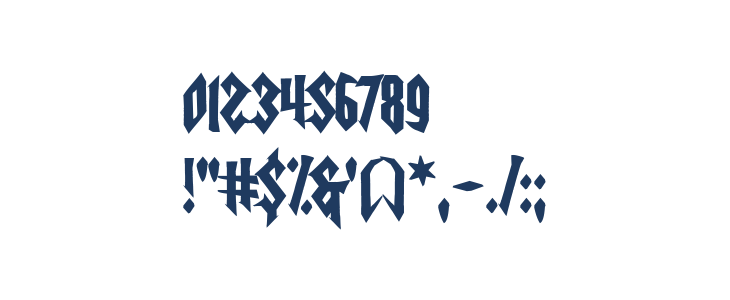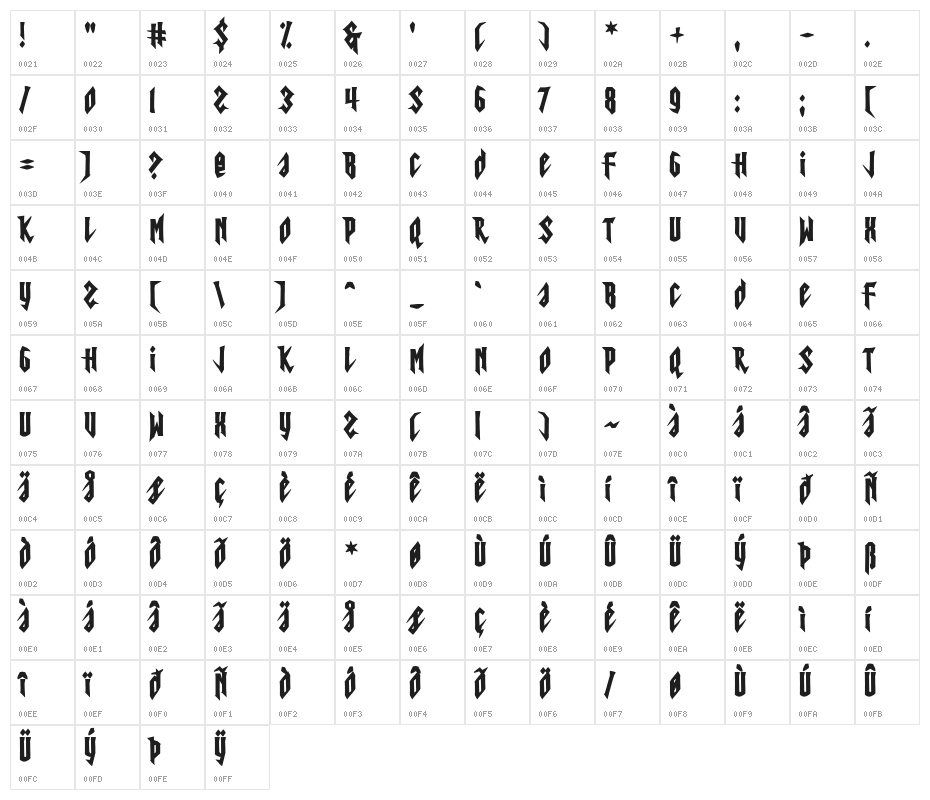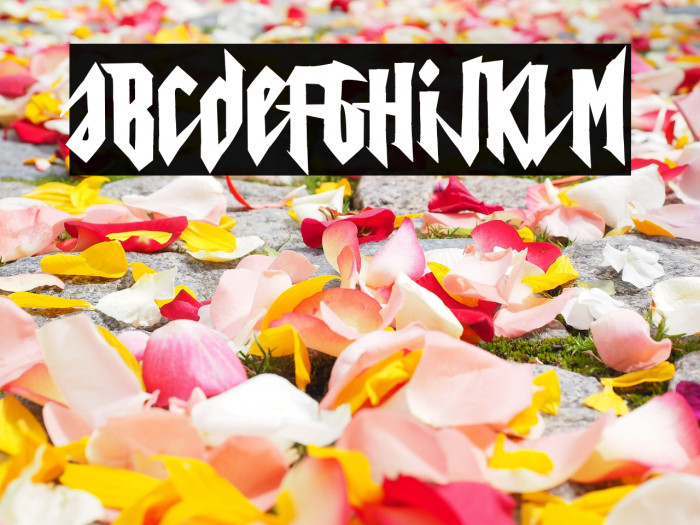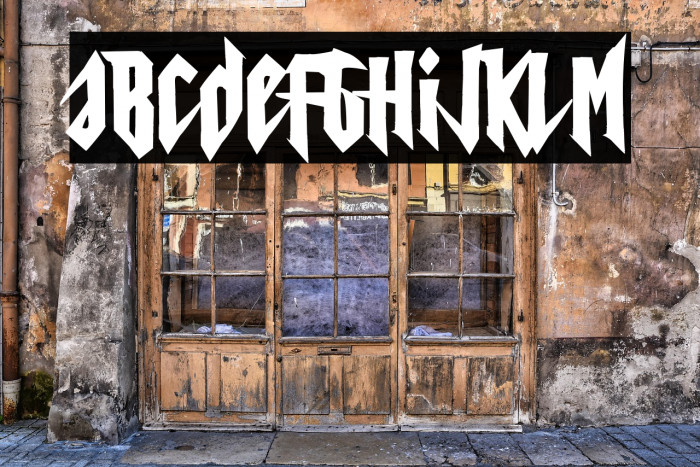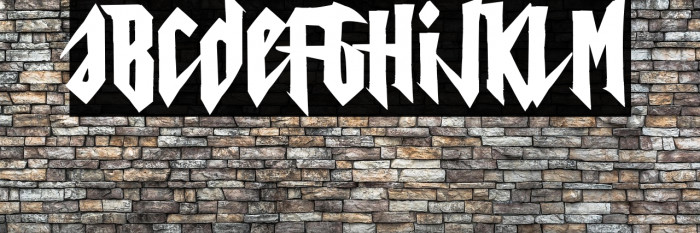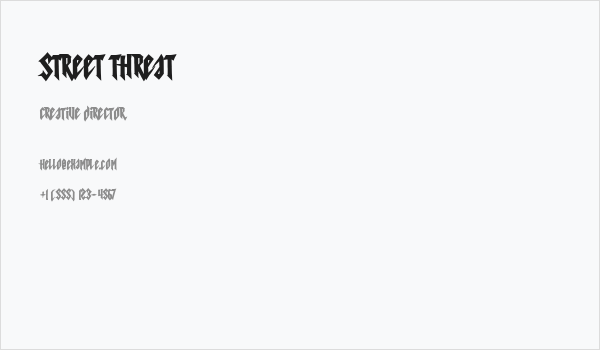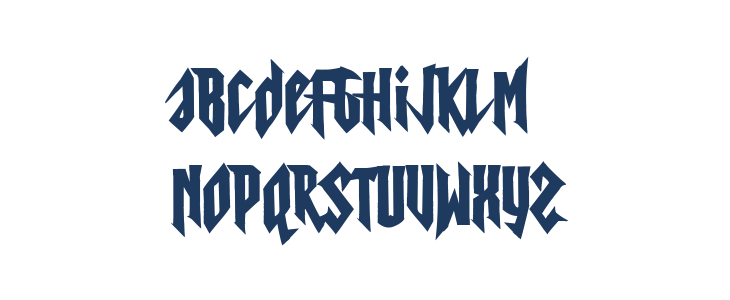
Street Threat Font
Street Threat Description
This font features a bold and aggressive design, characterized by sharp angles and thick strokes that convey a sense of intensity and power. The uppercase letters are particularly striking, with exaggerated serifs and a blocky appearance that makes them stand out. The lowercase letters maintain the same boldness, ensuring consistency throughout the typeface. Numbers and special characters are equally robust, making them suitable for impactful displays. The overall style is reminiscent of graffiti or street art, giving it a rebellious and edgy feel. This font is perfect for projects that require a strong visual impact and a modern, urban aesthetic.
Overall StyleModern, Urban, Edgy
Proposed ProjectsIdeal for streetwear branding, music album covers, event posters, and urban-themed designs.